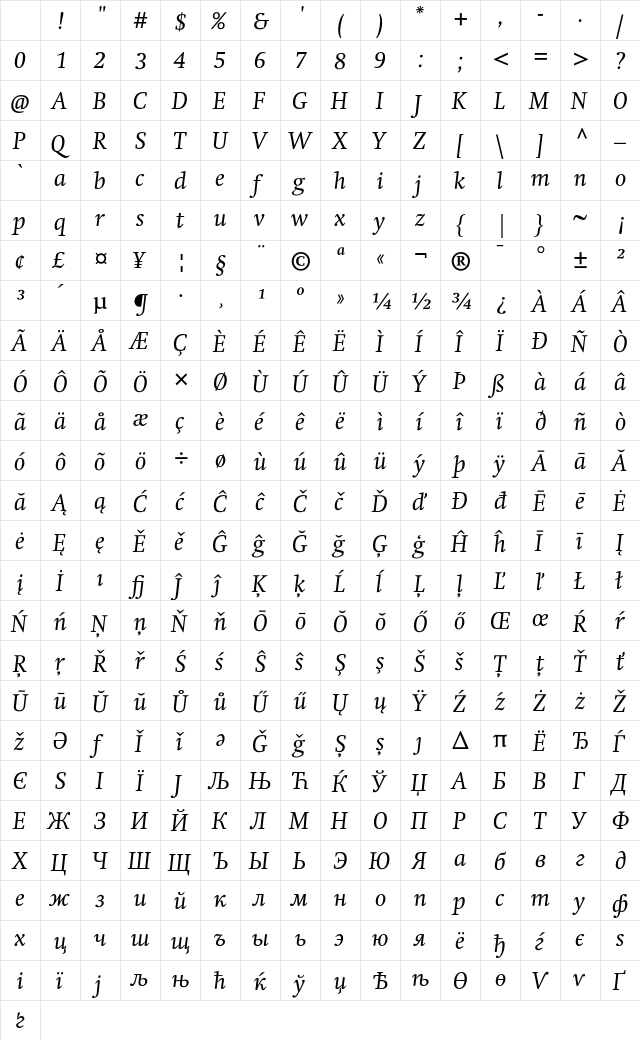
Complete Swift1 OT Italic glyph index. Displaying only characters natively supported by Swift1 OT Italic font.
Swift1 OT is a composed and adaptable typeface that performs quietly and consistently across a wide range of design contexts. The slanted form adds forward momentum and visual energy.